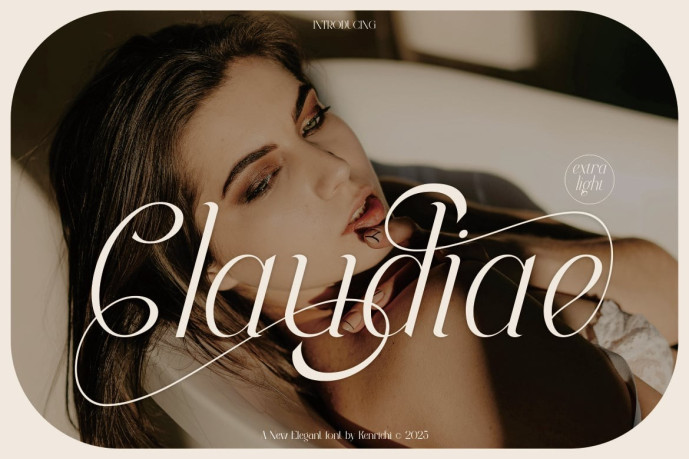
Claudiae Font
Designer: Kenrichi
Claudiae Font is a modern and authentic font. Perfect for professional and branding needs. This font is suitable for any branding project such as quotes, logos, blog headers, posters, banners, letters, invitations, stationery, etc. Designed as a versatile and flexible tool that can be used on a range of projects and media. exceptional in a wide range of contexts.